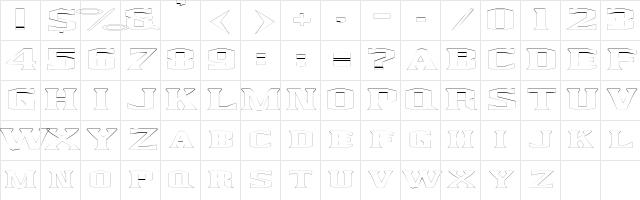
KingfreshCondensedOutline is built around its visual character rather than neutral utility - its distinctive forms are designed to make an impression at display sizes.
Font Pairing: Pair with a clean neutral sans-serif for body copy to let KingfreshCondensedOutline's character lead without overwhelming the composition.
Pro Tip: Use KingfreshCondensedOutline exclusively at display sizes - it was designed to be seen, not read at length. Let a neutral companion handle body copy.